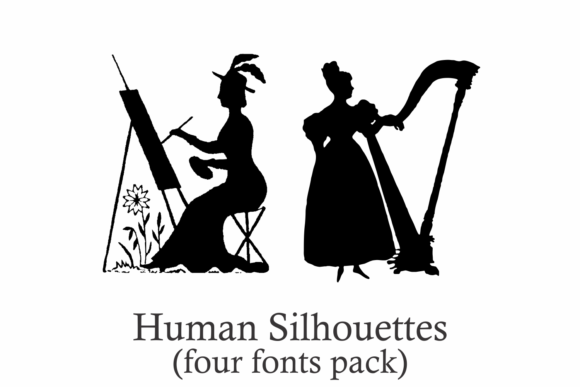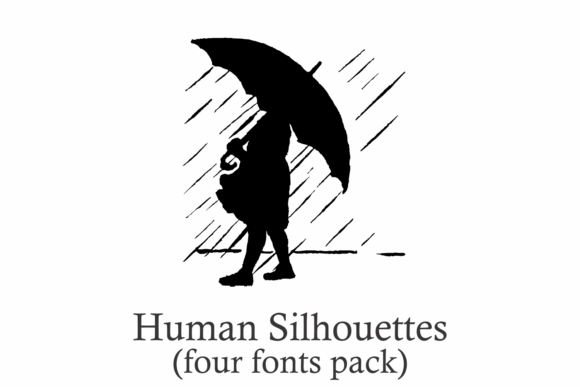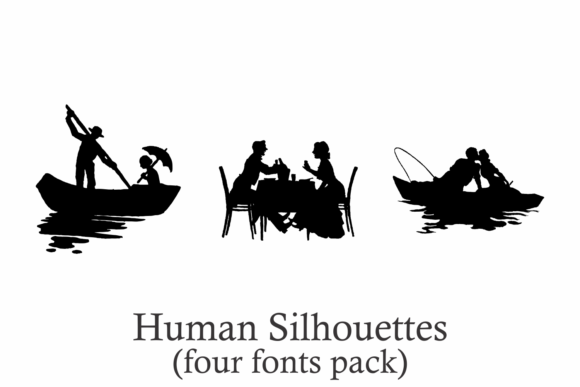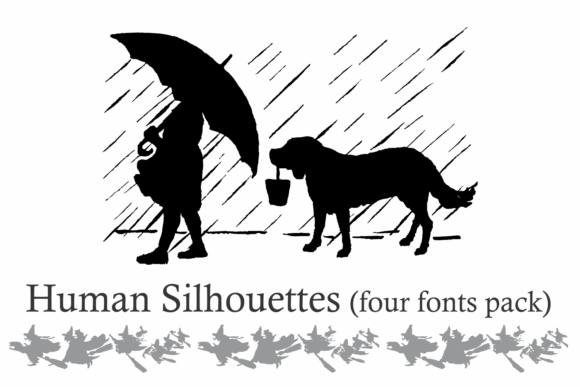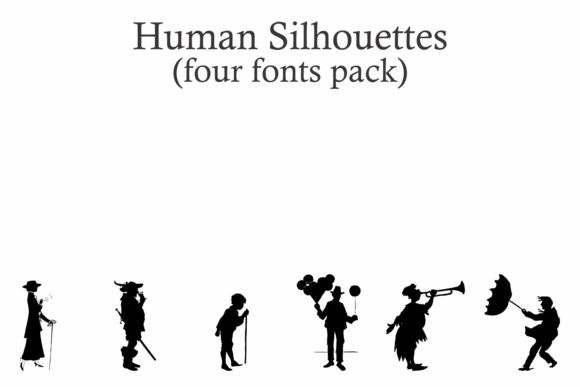
Step into the World of Human Silhouettes Font
The Human Silhouettes Font, designed by Intellecta Design, is a pack of four fonts that offers a unique perspective on people and daily situations. With a wide variety of topics and glyphs, this font pack is perfect for designers who want to add a personal touch to their designs. Whether you’re creating a social media campaign, a magazine cover, or a branding identity, the Human Silhouettes Font is an attractive addition to your design arsenal.
Human Silhouettes Font Key Features
- Unique Character Set: The font features a set of 12 unique silhouettes, each representing a different human figure, allowing for creative and diverse design possibilities.
- Size: The font is designed to be used in a variety of sizes, from small to large, and is suitable for both web and print applications.
- Resolution: Optimized for high-resolution displays, the font ensures crisp and clear rendering at resolutions up to 300 DPI.
- Font Size Range: The font is designed to be used in sizes ranging from 8 to 48 points, making it suitable for a wide range of design applications.
- Scalability: The font is highly scalable, allowing it to be used in a variety of contexts, from small icons to large-scale signage.
Designer Review: Human Silhouettes Font
Overall, I found the Human Silhouettes Font to be a visually striking and creative choice for designers looking to add a unique touch to their work. ✨
- The font’s bold, silhouetted design makes it perfect for creating eye-catching headlines and titles.
- The range of characters, including numbers and punctuation, adds to the font’s versatility.
- The font’s simplicity makes it easy to read and understand, even at small font sizes.
However, I did encounter some limitations that might affect its usability. ⚠️
- The font’s bold design can sometimes make it difficult to read at very small font sizes.
- The lack of italics and bold variations can limit its use in certain contexts.
- The font’s unique design might not be suitable for all types of content or audiences.
In conclusion, while the Human Silhouettes Font has its limitations, it remains a great choice for designers looking to add a touch of creativity and uniqueness to their work. With careful consideration of its limitations, it can be a valuable addition to any designer’s toolkit.
The Human Silhouettes Font is perfect for:
– Social media graphics and advertisements.
– Event invitations and flyers.
– Educational materials and presentations.
For best results, use the font in bold and colorful combinations to create eye-catching designs.